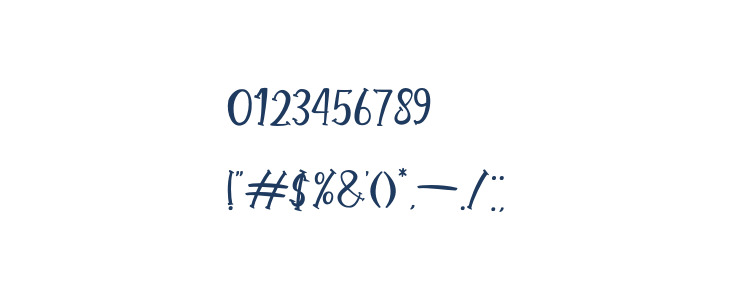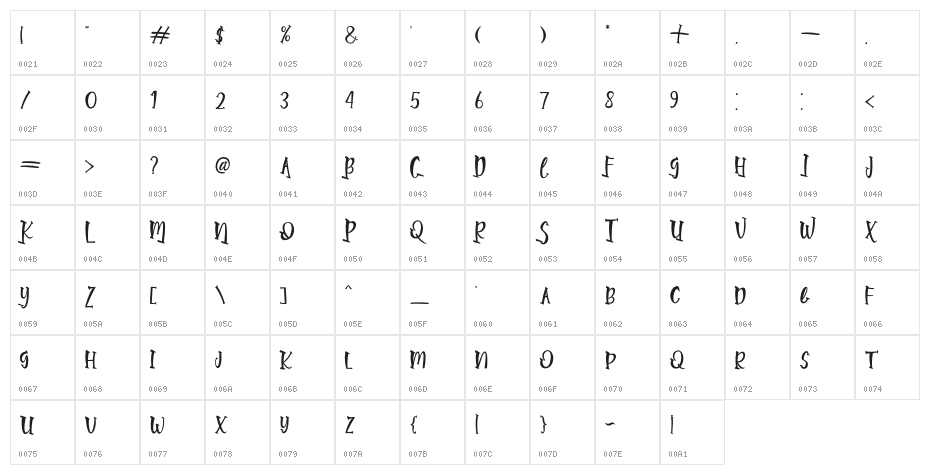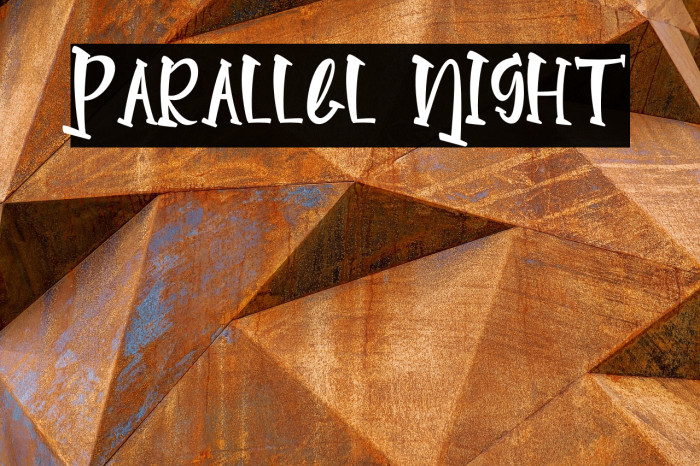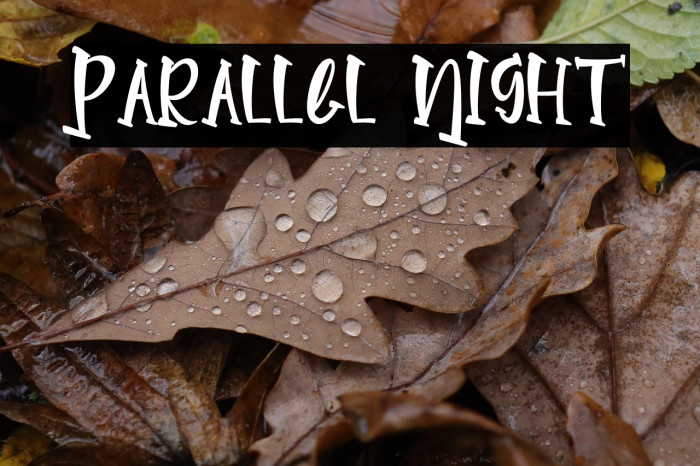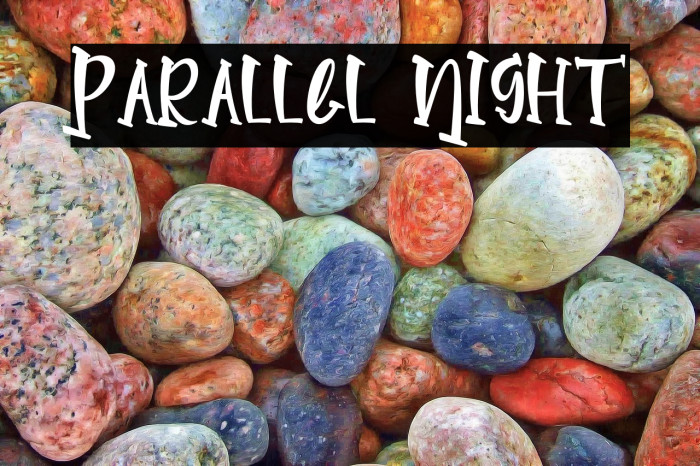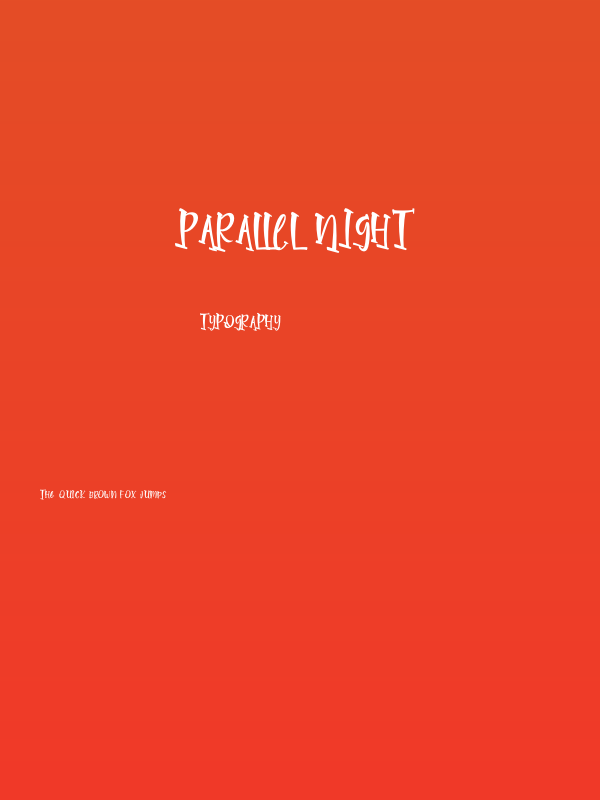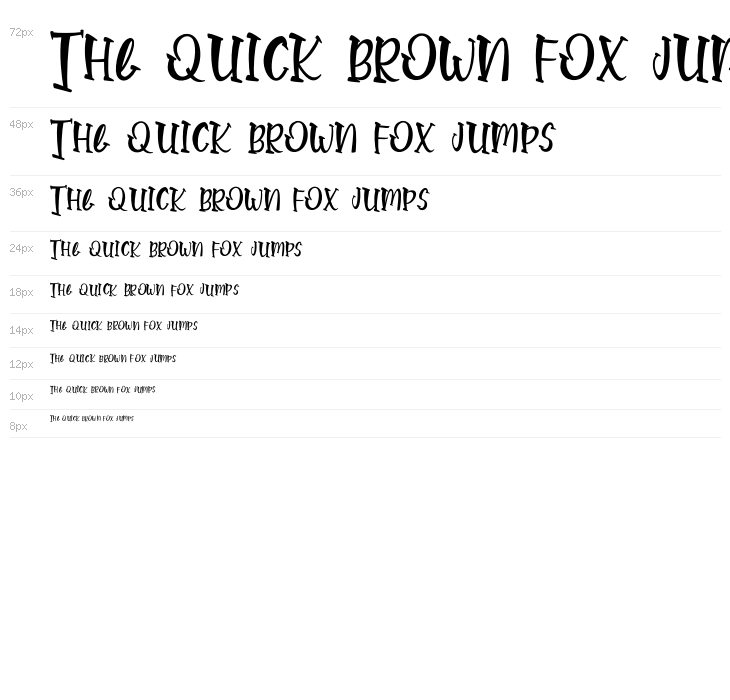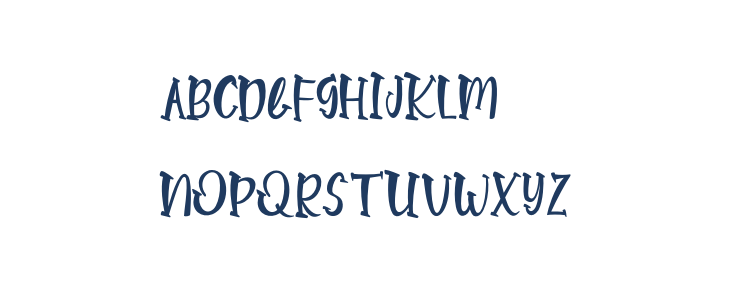
Parallel Night Font
Parallel Night Description
This font features a playful and dynamic style with a handwritten appearance. The characters are slightly slanted, giving a sense of movement and energy. The strokes are bold and have a consistent thickness, contributing to a strong visual impact. The uppercase and lowercase letters maintain a cohesive look, while the numerals and special characters blend seamlessly with the overall design. The font's unique flair makes it suitable for creative and informal applications, adding a touch of personality to any project.
| Use Case | Logos, Headlines, Posters |
| Proposed Projects | Ideal for greeting cards, posters, branding materials, and social media graphics. |